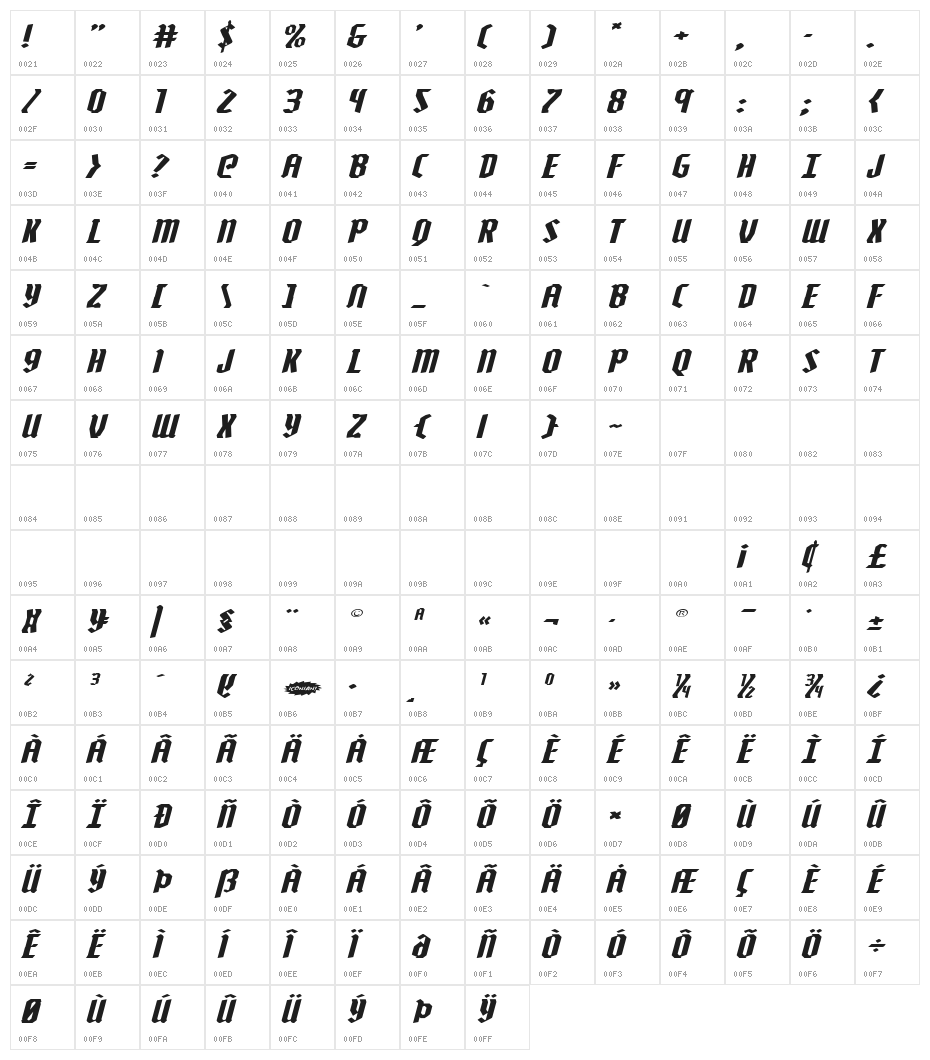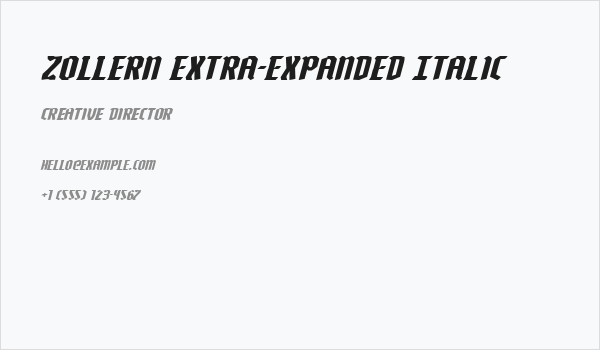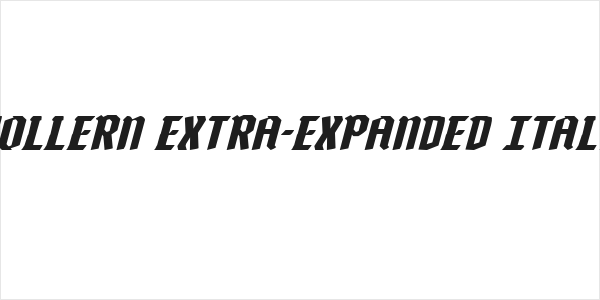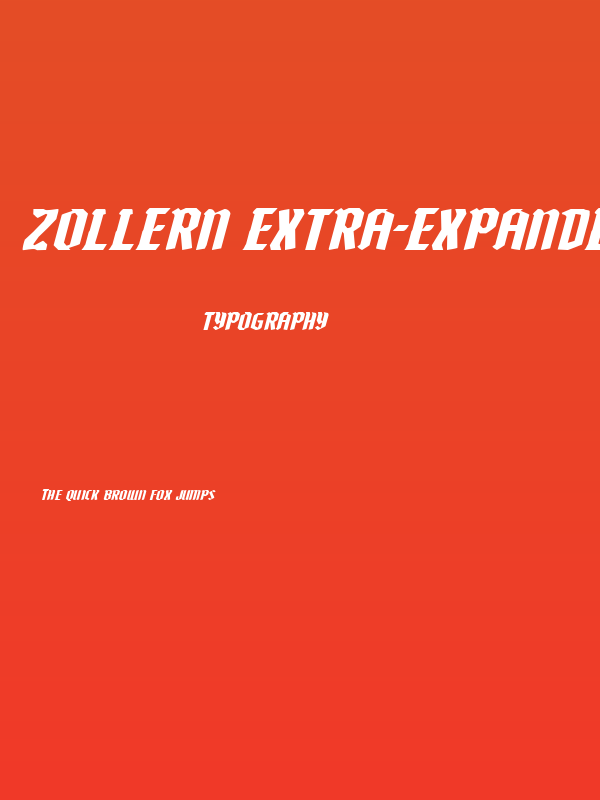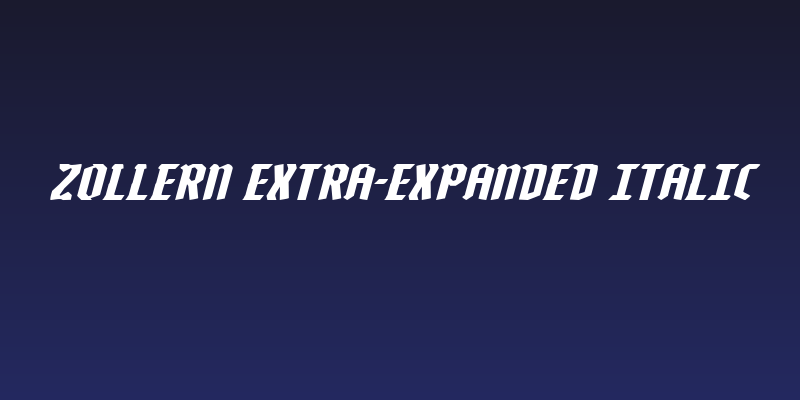
Zollern Extra-Expanded Italic Font
Zollern Extra-Expanded Italic Description
This font features a bold and dynamic style with a distinct slant, giving it an italicized appearance. The characters are extra-expanded, providing a wide stance that enhances readability while maintaining a strong visual impact. The angular and sharp edges contribute to a modern and edgy aesthetic, making it suitable for attention-grabbing designs. The uppercase and lowercase letters are consistent in style, and the numerals and special characters align seamlessly with the overall design. This font is ideal for projects that require a bold statement and a contemporary feel.
| Proposed Projects | Ideal for branding, poster design, headlines, and any project requiring a strong visual impact. |